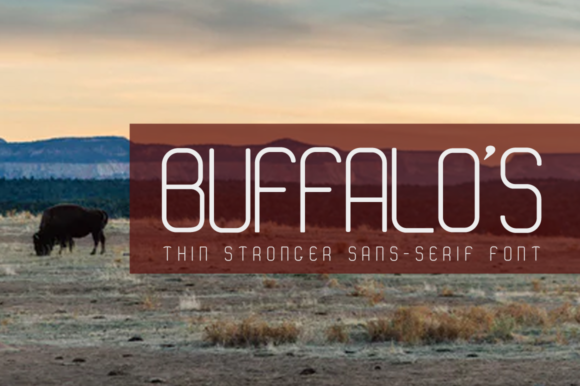
Step into the realm of visual enchantment, where Buffalo's Font reigns supreme, a sans serif masterpiece crafted by the renowned Gatra Std. This font is more than just a collection of letters; it's a gateway to a world of limitless creativity.
Buffalo's Font is the ultimate choice for designers seeking to create visually stunning displays. Its clean lines and crisp edges render flawlessly on screens, ensuring that your messages captivate attention from afar. Whether you're designing vibrant posters, eye-catching website headers, or engaging social media graphics, this font will elevate your creations to new heights.
But Buffalo's Font is not merely a functional tool; it's an artistic expression that breathes life into your designs. Its subtle curves and delicate strokes evoke a sense of elegance and sophistication, transforming your words into works of art. With its inherent versatility, it seamlessly adapts to a myriad of projects, from minimalist branding to bold advertising campaigns.
Imagine your designs adorned with the allure of Buffalo's Font, captivating your audience with its effortless charm. Its timeless appeal transcends trends, ensuring that your creations remain visually stunning for years to come. So why settle for ordinary when you can embrace the extraordinary? Unleash the power of Buffalo's Font today and witness the transformative impact it brings to your designs. Let your imagination soar and create masterpieces that leave an unforgettable impression!